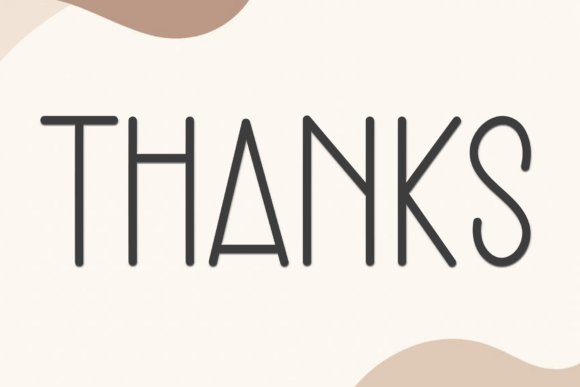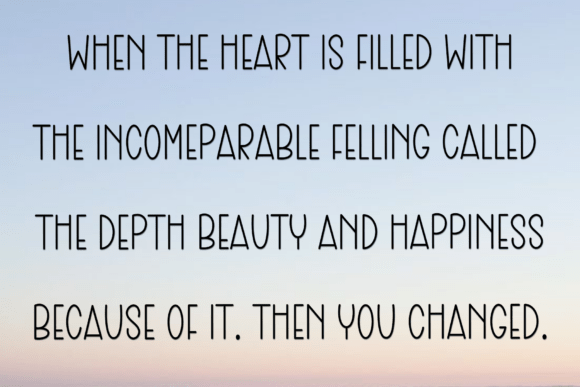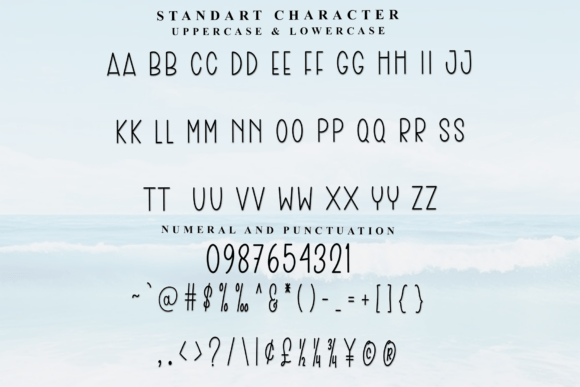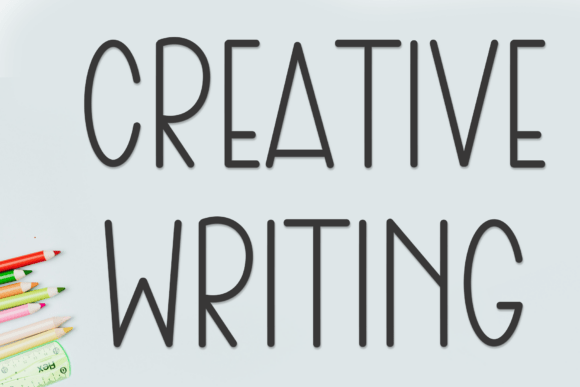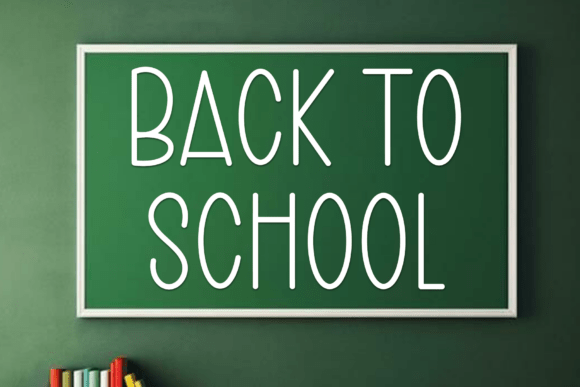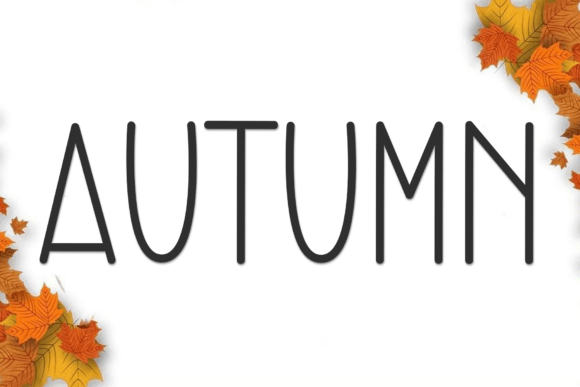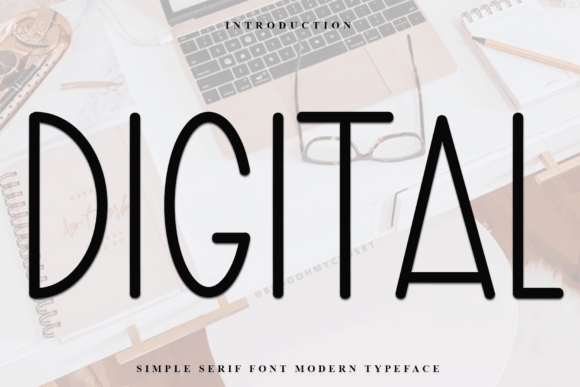
Introducing Digital Font: The Festive Typeface for Your Holiday Designs
The holiday season is upon us, and what better way to get into the spirit than with a font that’s as merry and bright as the twinkling lights on your Christmas tree? Look no further than Digital Font, a decorative typeface that’s specifically designed to add a touch of enchantment to your holiday-themed projects. Whether you’re a designer, crafter, or simply someone who loves to get creative during the holidays, this font is sure to become your new go-to.
A Festive and Whimsical Typeface
Digital Font is more than just a typeface – it’s an experience. With its decorative elements and whimsical flair, it’s the perfect way to add some magic to your designs. Imagine being able to create greeting cards, gift tags, and holiday-themed projects that transport your recipients to a winter wonderland. With Digital Font, you can do just that. Its unique and playful design makes it perfect for a wide range of applications, from festive flyers and posters to social media graphics and more.
As a designer or crafter, you know how important it is to have the right tools at your disposal. That’s why Digital Font is the perfect addition to your creative arsenal. With its PUA encoding, you can access all of the amazing glyphs and ligatures with ease, making it simple to create stunning holiday-themed designs that will leave your audience in awe. Whether you’re creating custom gifts, decorations, or simply want to add some festive flair to your digital content, Digital Font has got you covered.
What Makes Digital Font So Special?
So, what sets Digital Font apart from other typefaces on the market? For starters, its unique and decorative design makes it perfect for holiday-themed projects. But that’s not all – here are just a few of the features that make Digital Font so special:
- PUA Encoding: With PUA encoding, you can access all of the amazing glyphs and ligatures with ease, making it simple to create stunning holiday-themed designs.
- Decorative Elements: Digital Font features a range of decorative elements, from snowflakes and holly leaves to Christmas trees and more.
- Whimsical Flair: This font has a playful and whimsical design that’s perfect for adding a touch of magic to your designs.
How to Use Digital Font in Your Designs
Using Digital Font in your designs is easy. Here are just a few ideas to get you started:
- Greeting Cards: Create custom holiday greeting cards that will leave your friends and family in awe.
- Gift Tags: Add a touch of magic to your gifts with custom gift tags featuring Digital Font.
- Holiday-Themed Projects: From festive flyers and posters to social media graphics and more, Digital Font is perfect for a wide range of holiday-themed projects.
- Custom Gifts: Create custom gifts, such as holiday-themed mugs, t-shirts, and more, featuring Digital Font.